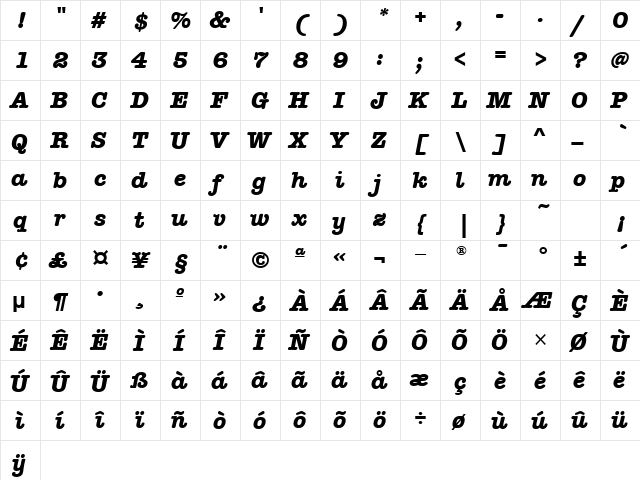
AmTypewriterITCTT BoldItalic Font Preview
| Foundry | International Typeface Corporation |
| Designer | Tony Stan/Joel Kaden |
Design Context for AmTypewriterITCTT Typeface
AmTypewriterITCTT uses fixed-width spacing throughout, giving it the structured, systematic character associated with coding environments and technical documentation. The slanted form adds forward momentum and visual energy. The heavy weight commands attention and anchors typographic hierarchies.